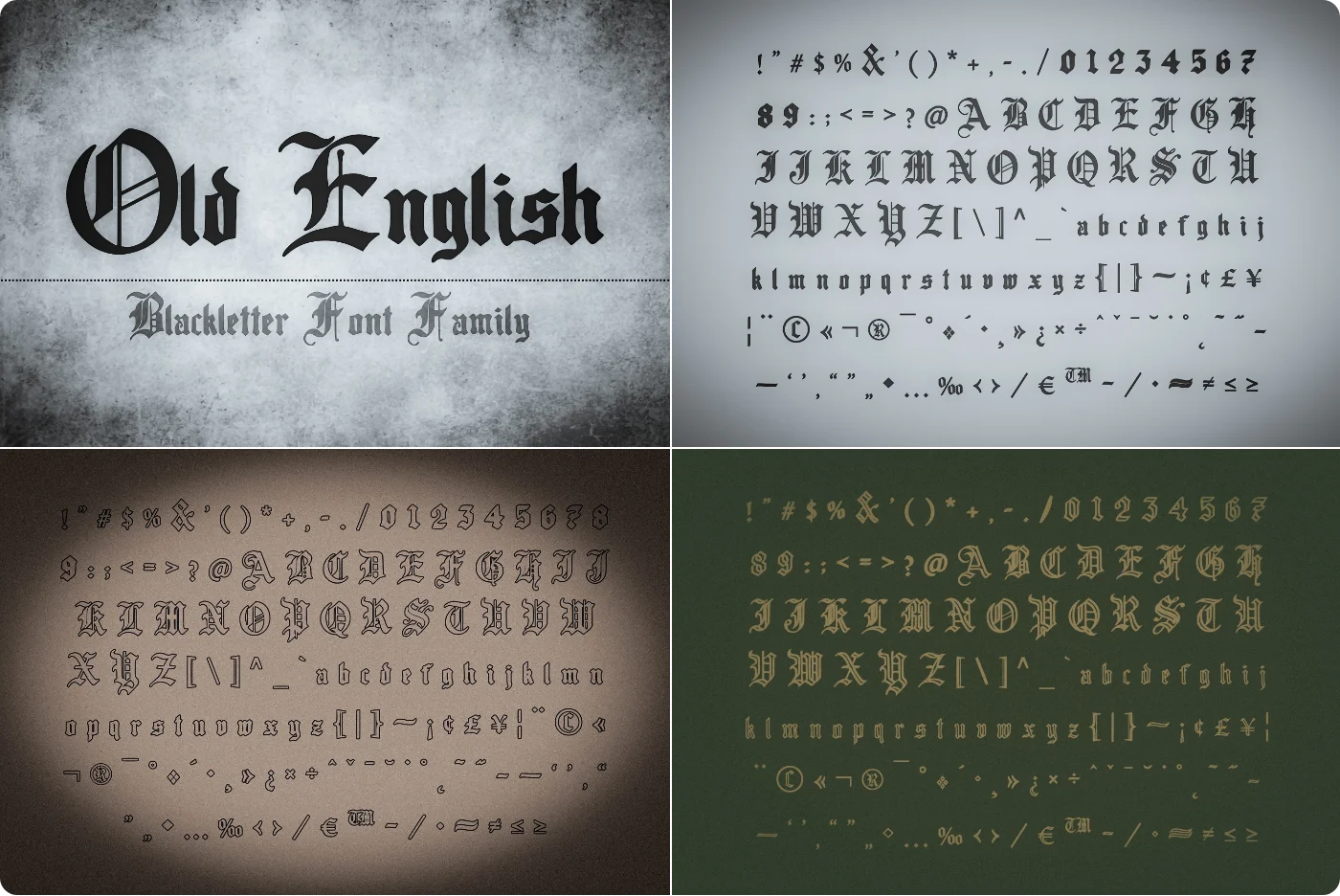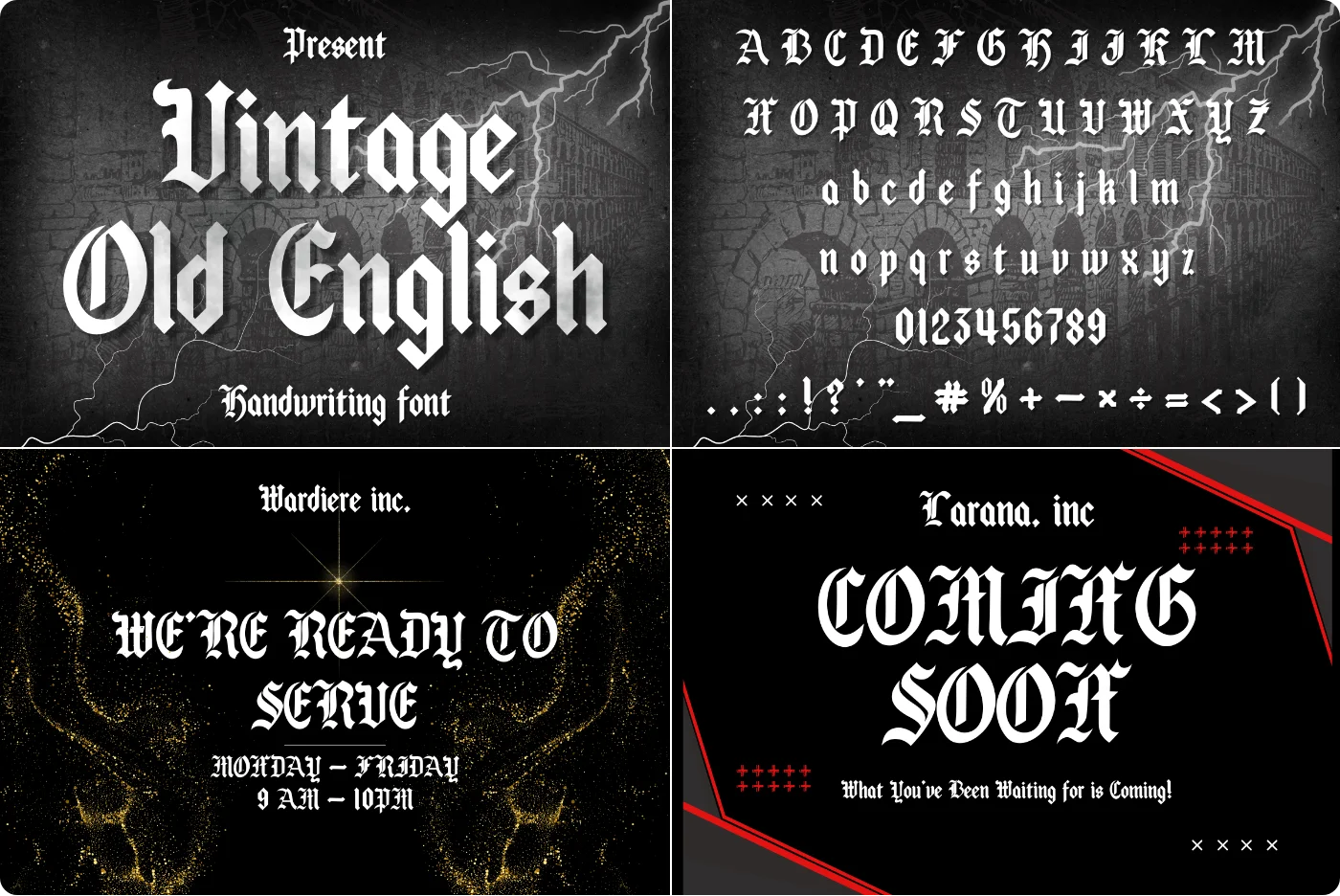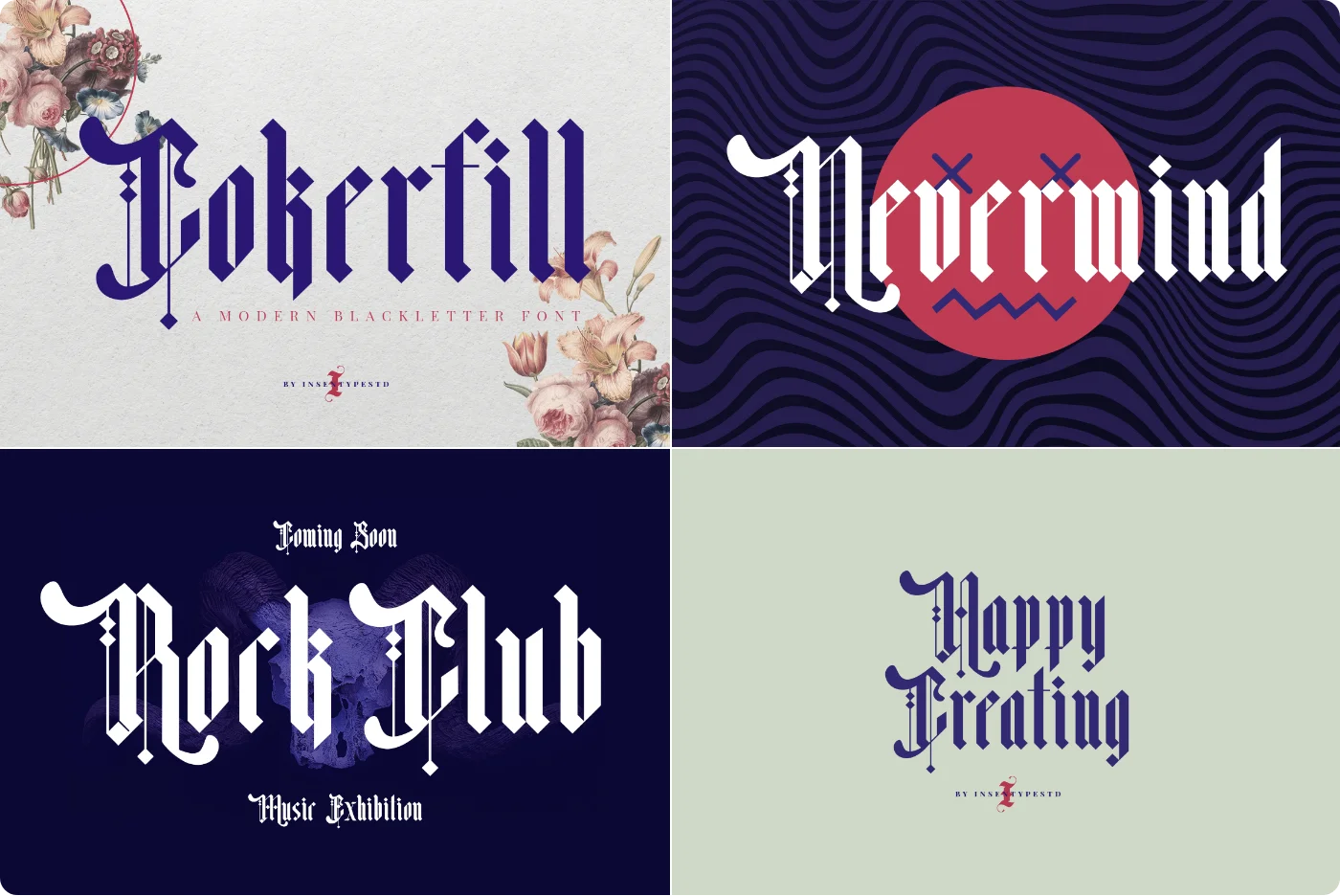
Choosing the right Old English lettering for tattoos and gothic branding can be tricky—this handpicked set narrows the field to striking faces with clear vibes, best-use guidance, and feature callouts. Each option installs in seconds and runs in Adobe, Affinity, Office, Canva, plus Cricut and Silhouette, with tips on alternates, ligatures, and cut-friendly setups so your designs look crisp on skin, vinyl, and print.
1. Bersavet Blackletter Font
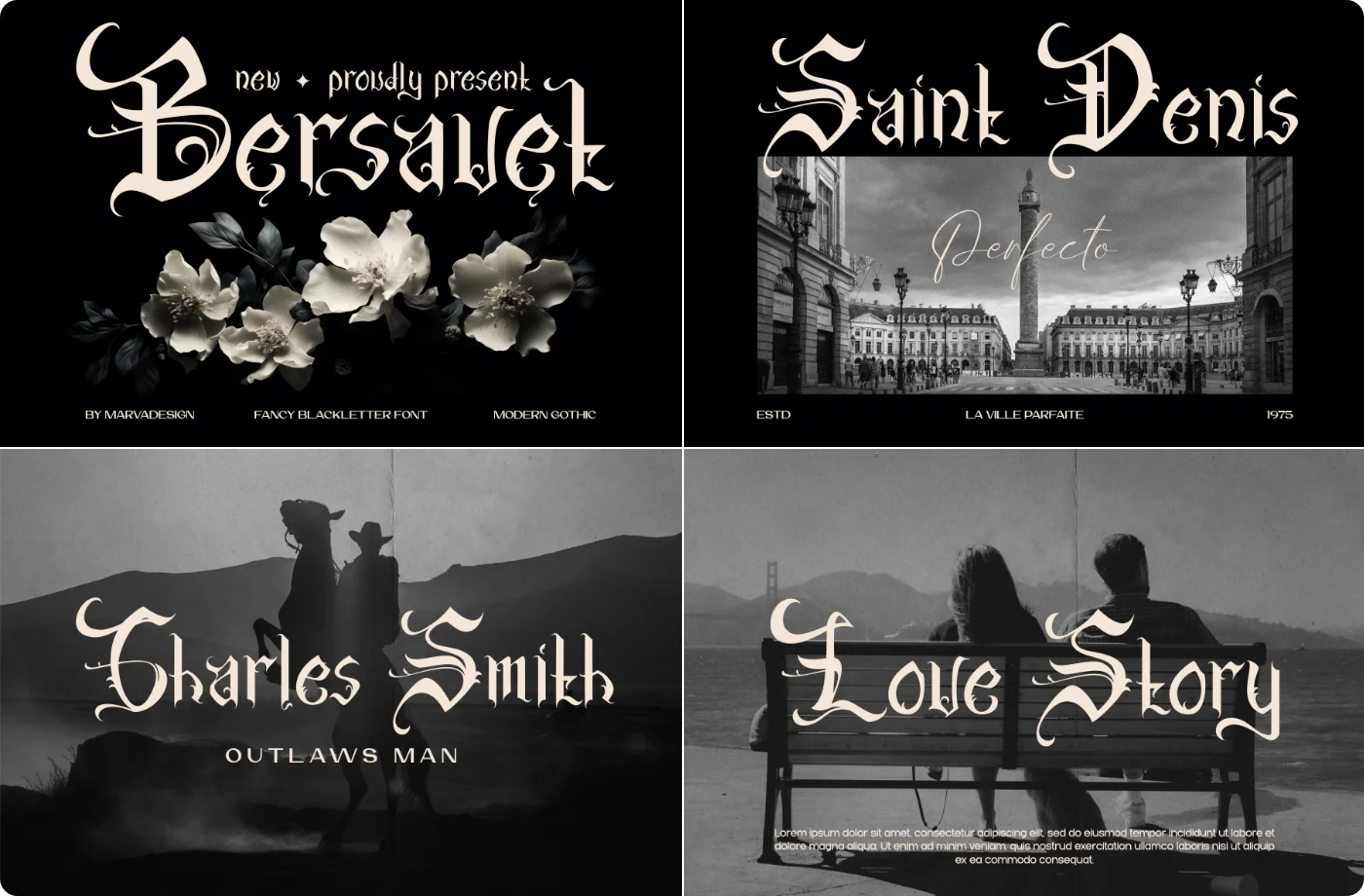
Bersavet is an ornate, bold blackletter built for high-impact, tattoo‑inspired display work and standout branding.
- Style/mood: decorative blackletter with edgy, expressive strokes.
- Best for: tattoos, logos/branding, apparel, posters, packaging, headlines.
- Glyphs: standard Latin letters (A–Z, a–z), numerals, punctuation.
- OpenType features: lowercase stylistic alternates for added variation (access via Stylistic Alternates/Stylistic Sets or glyph panel).
- Notes: high contrast and ornate details are optimized for display sizes.
2. Bladge Blackletter Font
Bladge blends classic blackletter with a modern edge, delivering a bold western–gothic voice that stands out in branding and headlines.
- Style/mood: sharp blackletter forms with contemporary polish; bold, gritty, and confident.
- Best for: tattoo studios, barbershops, streetwear/apparel branding, posters, labels, signage, and social graphics.
- Glyph set: uppercase and lowercase Latin letters, numerals, and punctuation; optimized kerning for clean spacing.
- OpenType: core OpenType support (kerning); advanced features vary by app/version.
3. Oldero Blackletter Font
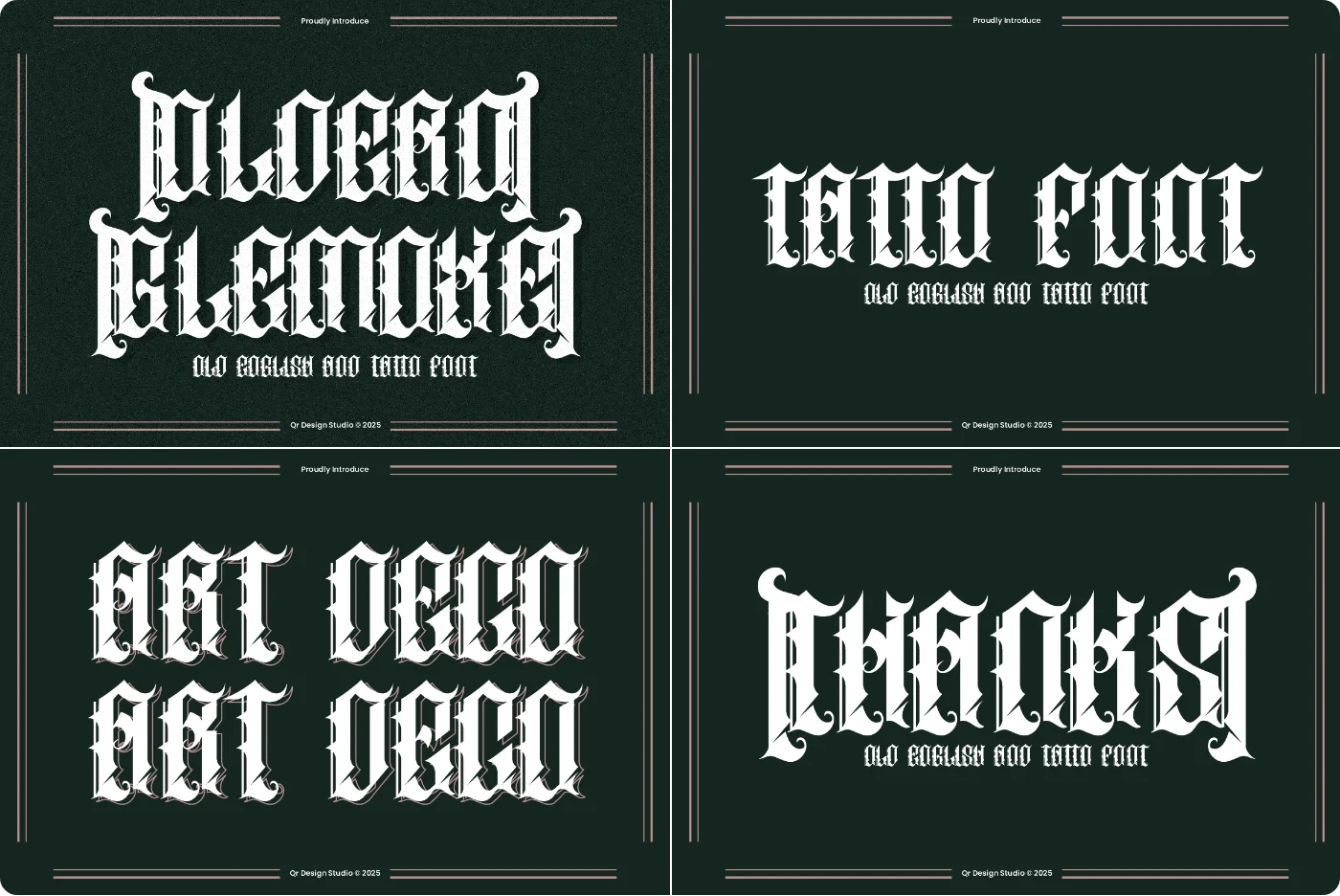
Oldero Glemoxe is a bold blackletter with spiked serifs and dramatic strokes—perfect for gothic, tattoo, and vintage aesthetics. It delivers high-impact, Old English–inspired character for standout headlines and logos.
- Style/mood: aggressive, gothic blackletter with Old English calligraphy and tattoo-art vibes.
- Best for: logos/branding, tattoo lettering, posters, apparel, vintage labels, album covers, and merch.
- Glyphs: A–Z, a–z, numerals, and basic punctuation; multilingual coverage not specified.
- OpenType features: not specified (assume standard encoding; specialty ligatures/alternates not guaranteed).
4. Bubble Blackletter Font
Gothic meets playful: Bubble Old English fuses sharp blackletter drama with soft, bubble-like curves for a bold, modern edge.
- Style/mood: modern blackletter (Old English) with rounded accents; bold, edgy, and distinctive.
- Best for: tattoos, vintage posters, heavy metal/band branding, logos, merch, and headline graphics.
- Glyph set: A–Z, a–z, 0–9, and common punctuation/symbols.
- OpenType: kerning and standard ligatures; no extended language set or color/bitmap layers.
- Production-ready: clean vector outlines; cut-friendly for vinyl and stencil use at display sizes.
5. Old English Blackletter Font
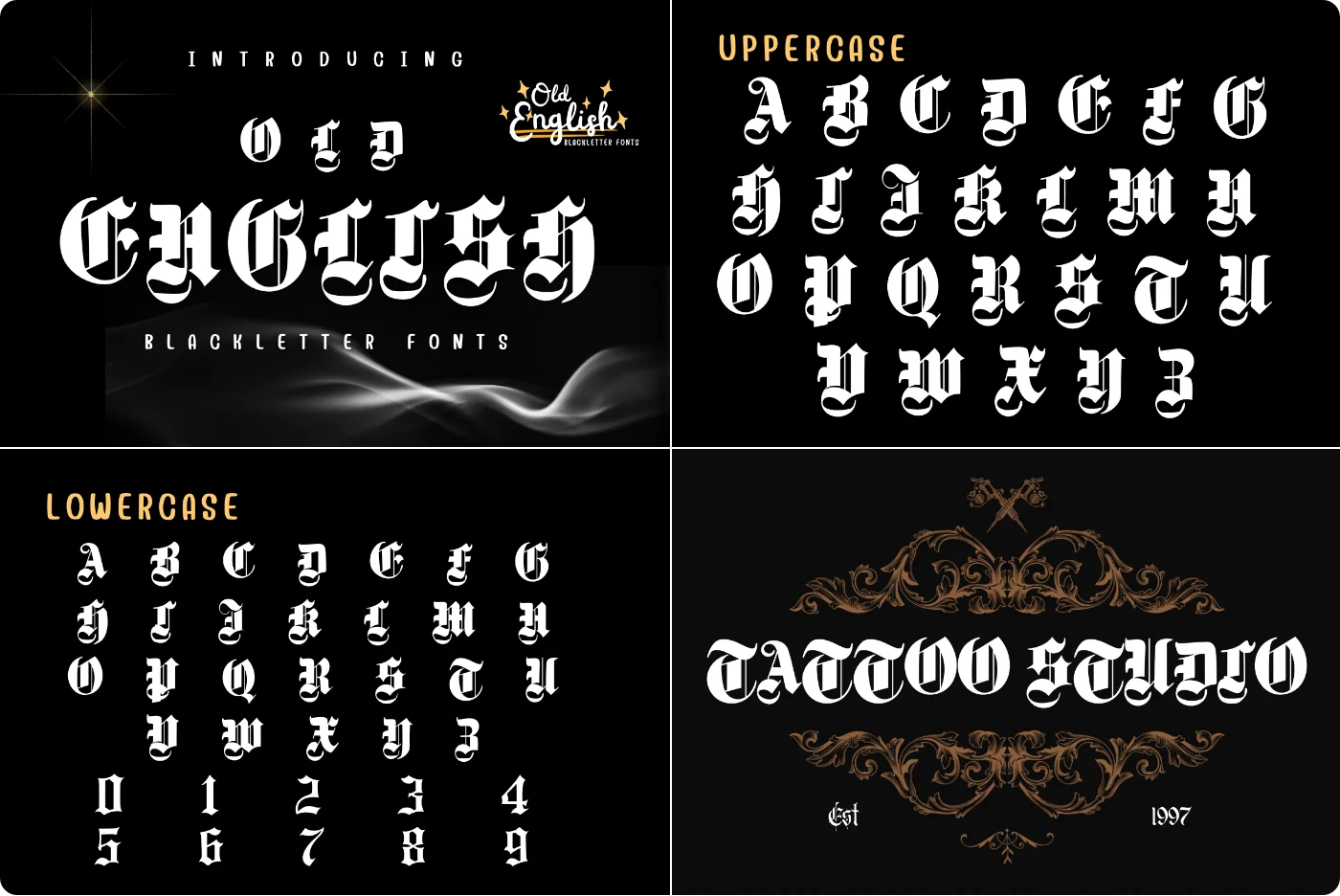
A bold Old English blackletter that brings authentic Gothic drama to titles, logos, and statements.
- Style/mood: Classic Gothic blackletter; dramatic, historic, and authoritative—best for display sizes.
- Use cases: Vintage posters, branding/wordmarks, tattoo designs, medieval/fantasy themes, signage, and packaging.
- Glyph set: Basic Latin A–Z and a–z, numerals, and core punctuation/symbols.
- OpenType features: Standard kerning and metrics; no discretionary ligatures or stylistic alternates specified.
6. Tattoo Handwritten Font
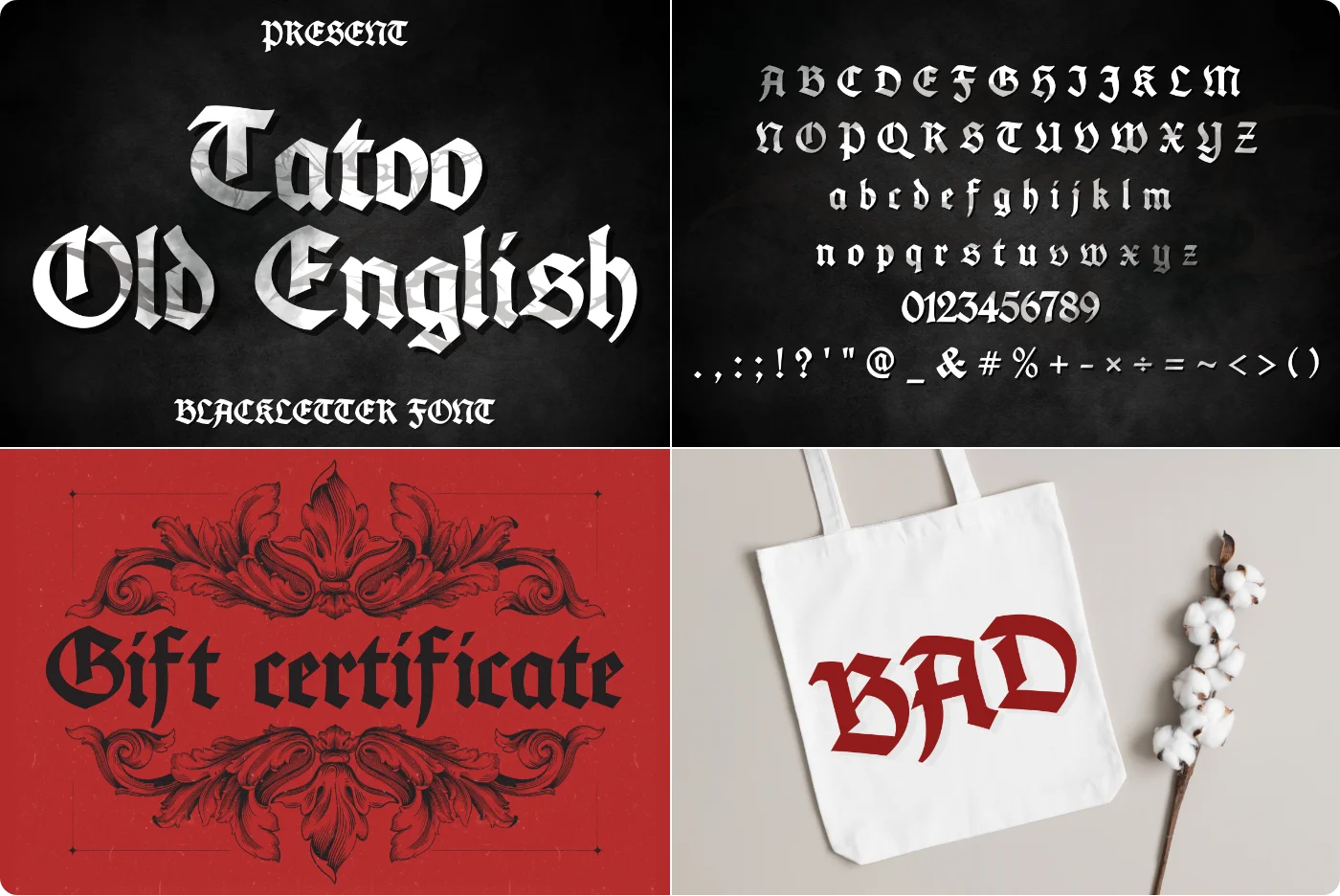
- Glyph set: uppercase, lowercase, numerals, punctuation, and multilingual Latin support (accented characters).
- OpenType: standard kerning/metrics; no stylistic alternates or ligatures included.